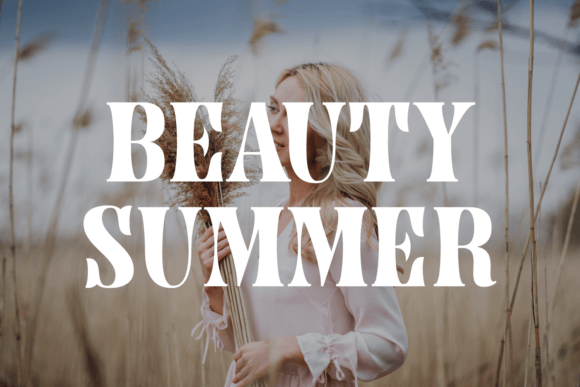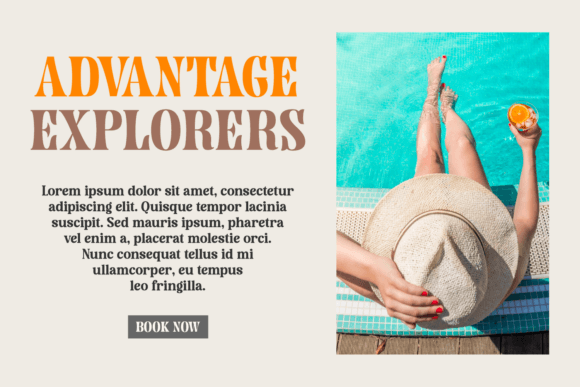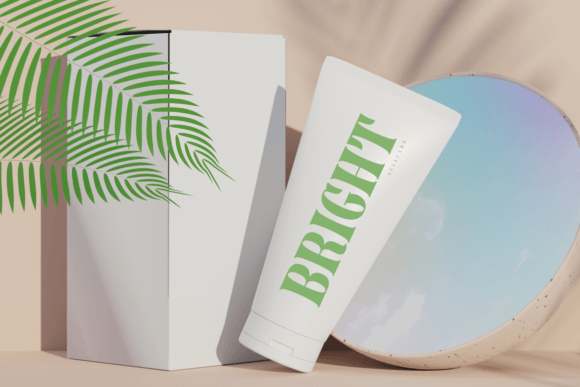
Introducing Adole Font: Elevate Your Designs with Timeless Elegance
In the world of typography, few fonts manage to capture the essence of elegance and sophistication as effortlessly as Adole. This exquisite serif font is designed to bring a touch of luxury and refinement to any design project, making it an ideal choice for discerning designers and crafters. With its delicate curves, refined details, and graceful letterforms, Adole is poised to become the go-to font for luxury branding, invitations, editorial designs, and more.
The Beauty of Adole: A Closer Look
Adole’s design is characterized by its meticulous attention to detail and commitment to classic typographic principles. Each letterform is carefully crafted to exude a sense of sophistication and poise, making it perfect for projects that demand a high level of elegance. The font’s delicate curves and refined details work in harmony to create a visually stunning effect that is both timeless and modern.
Perfect for Luxury Branding
Luxury branding requires a font that can convey a sense of exclusivity, sophistication, and high-end quality. Adole fits the bill perfectly, with its elegant serif design and refined aesthetic. Whether you’re creating a logo, packaging, or marketing materials for a luxury brand, Adole is the perfect choice to help you establish a premium image.
Elevate Your Invitations with Adole
Invitations are a special category of design that demands a high level of elegance and sophistication. Adole is the perfect font to use for wedding invitations, formal events, and other special occasions. Its graceful letterforms and refined details ensure that your invitations make a lasting impression on your guests, setting the tone for a memorable event.
Adole in Editorial Design
Editorial design requires a font that is both readable and visually appealing. Adole’s elegant serif design makes it an excellent choice for magazines, newspapers, and other editorial projects. Its refined aesthetic and classic typographic principles ensure that your content stands out on the page, while its delicate curves and refined details add a touch of sophistication to your design.
Why Choose Adole?
So why choose Adole over other fonts? Here are just a few reasons why Adole stands out:
- Timeless elegance: Adole’s classic design ensures that your projects will never go out of style.
- Sophistication and refinement: Adole’s delicate curves and refined details add a touch of luxury to any project.
- Readability: Adole’s elegant serif design ensures that your content is easy to read, even in smaller sizes.
- Versatility: Adole is perfect for a wide range of design projects, from luxury branding to editorial design.
In conclusion, Adole is a truly exceptional font that embodies the very best of elegant serif design. Its delicate curves, refined details, and graceful letterforms make it perfect for luxury branding, invitations, editorial designs, and more. Whether you’re a designer or crafter, Adole is the perfect choice to elevate your projects and add a touch of timeless elegance to your work.